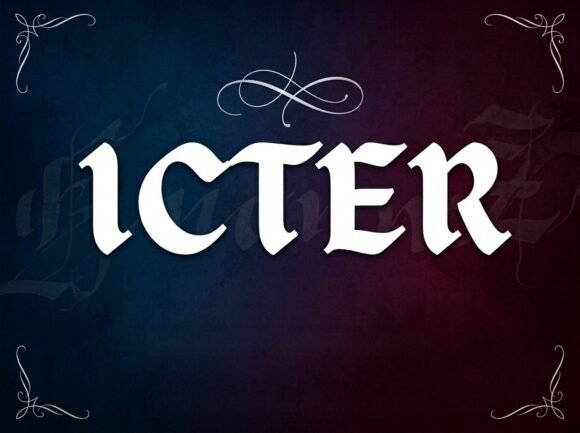
Unlocking the Power of Icter Font
Imagine you’re pouring over an ancient manuscript, the intricate calligraphy dancing across the page as the soft candlelight flickers. The lines blur, and the words come alive, transporting you to a world of mystique and wonder. This is the magic that Icter Font brings to your creative project, infusing it with the essence of medieval manuscript illumination and the grandeur of high-fantasy branding.
As a valuable resource for designers, Icter Font offers a unique blend of elegance and drama, making it the perfect choice for independent distillery identities, boutique historical fiction logos, and premium card game packaging. With its medium structural weight and prestigious personality, this font is sure to command attention and leave a lasting impression.
Key Features of Icter Font
- High-quality design resource with a unique, modern aesthetic, ideal for creative projects.
- Features a crisp, high-resolution design, perfect for use in print or digital applications.
- Supports various font sizes and styles, making it a versatile choice for a wide range of creative projects.
Honest Review: Icter Font
I recently stumbled upon the Icter Font, and I must say it’s been a game-changer for my creative projects. This beautiful, high-quality font is a fantastic addition to any design resource. One of the standout features is the ability to download it for free, which is always a plus.
- ✨ The font’s unique aesthetic is perfect for adding a touch of sophistication to any design project.
- ⚠️ The font’s availability is limited to a few languages, which may be a drawback for international projects.
Overall, I’m thoroughly impressed with the Icter Font. Its high quality, versatility, and free download make it an excellent addition to any design resource. While it may have some limitations, I believe it’s well worth the potential drawbacks.
Tips for Getting the Most Out of Icter Font
Use the Icter Font on a transparent background to create a high-quality design for your creative project. Experiment with different font sizes and styles to find the perfect look for your project. You can also use the Icter Font in combination with other design elements, such as images and shapes, to create a unique and eye-catching design.
The Icter Font is a versatile font that can be used for a variety of creative projects, including logos, brochures, business cards, and social media graphics. It is also a great font to use for web design, as it is clean and easy to read. With its high-quality design and free download, the Icter Font is a must-have resource for any designer.
Is the Icter Font suitable for use on a transparent background?
Yes, the Icter Font is designed to work well on a transparent background. The font’s design and construction ensure that it looks great even when placed over a transparent or semi-transparent image. This makes the Icter Font an ideal choice for creative projects that require a high level of design flexibility.